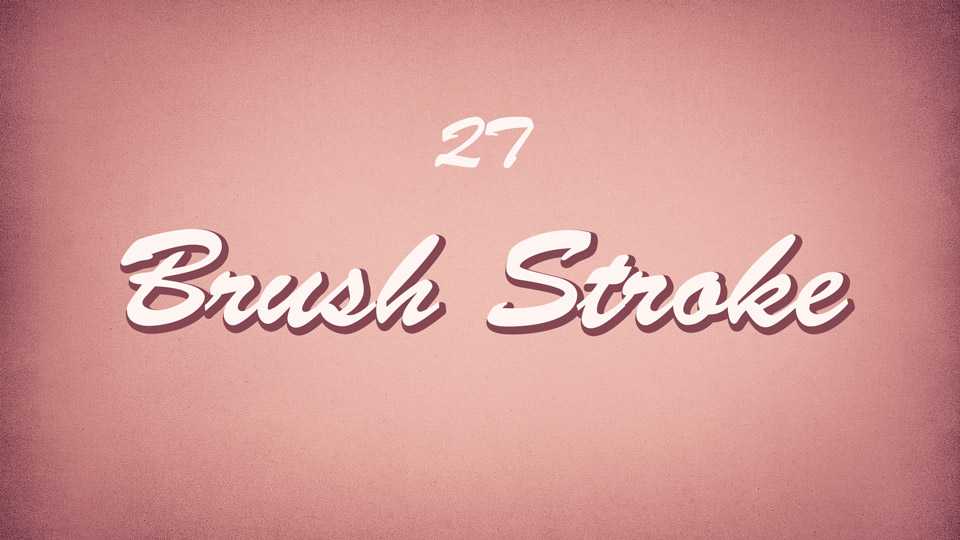
Download Brush Stroke font, a handwritten typeface based on Brush Script of American Type Founders, 1972, by Robert Smith. Brush Stroke designed to give the impression of letters written with a brush with coherent lowercase, giving a fairly black overall color.